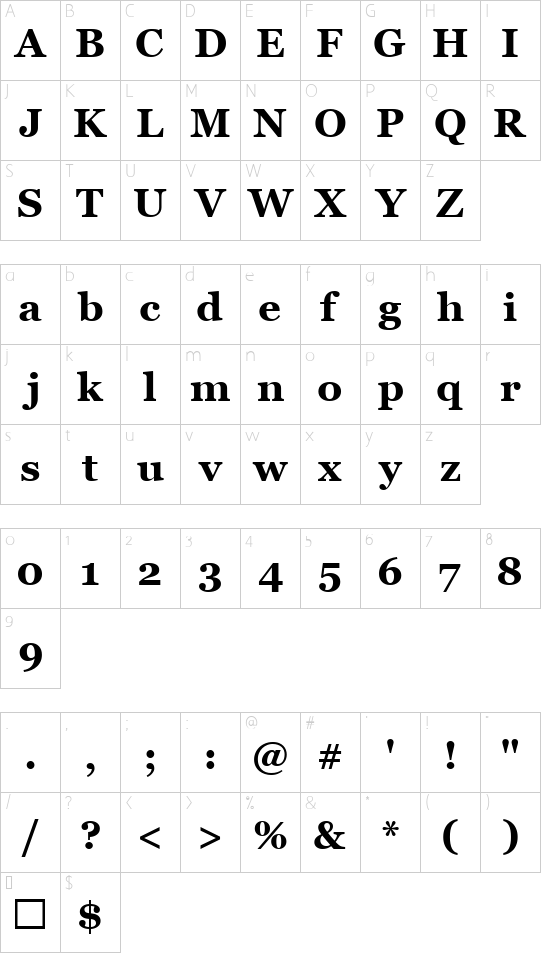
Georgia Font Bold
Georgia font bold. Remember that georgias bold is a bit bolder than the bold of some other fonts so you can make a substantial impact. Georgias accompanying italic is a graceful flowing font the design of which entirely masks the difficulty of creating an italic for the screen. Georgia bold italic fontttf.
You may use this font to create display and print. Comparable styles and pairings georgia is transitional meaning it shares elements from both old serif styles and modern styles. However microsofts font manager.
Ms reference serif a derivative of georgia ref with a bold weight and italic was also included in microsoft encarta. We have thousands of free fonts available for you. Georgia font in use.
Georgia boldttf file size. Georgia ref a variant of georgia consisting of a single weight but with extra characters was bundled with microsoft bookshelf 2000 encarta encyclopedia deluxe 99 encarta virtual globe 99. File name size download.